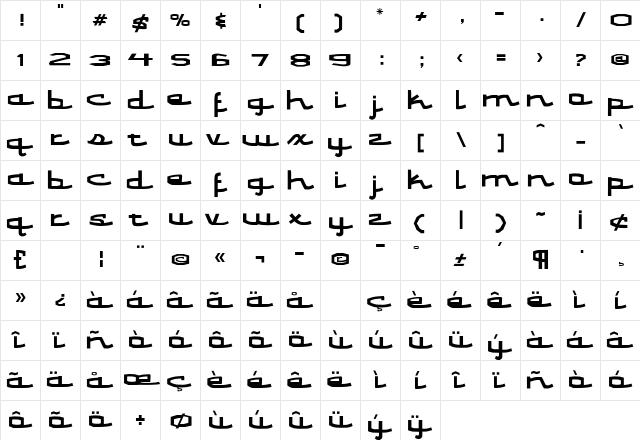
Complete Retron Regular glyph index. Displaying only characters natively supported by Retron Regular font.
Retron wears its vintage influences proudly, with letterforms that recall mid-century signage, classic packaging, and nostalgia-driven design.
Font Pairing: Combine Retron with a simple slab or neutral sans - period-accurate companions reinforce the vintage feel without competing for attention.
Pro Tip: Lean into Retron's period character by pairing it with aged paper textures, muted colour palettes, and vintage illustration styles.